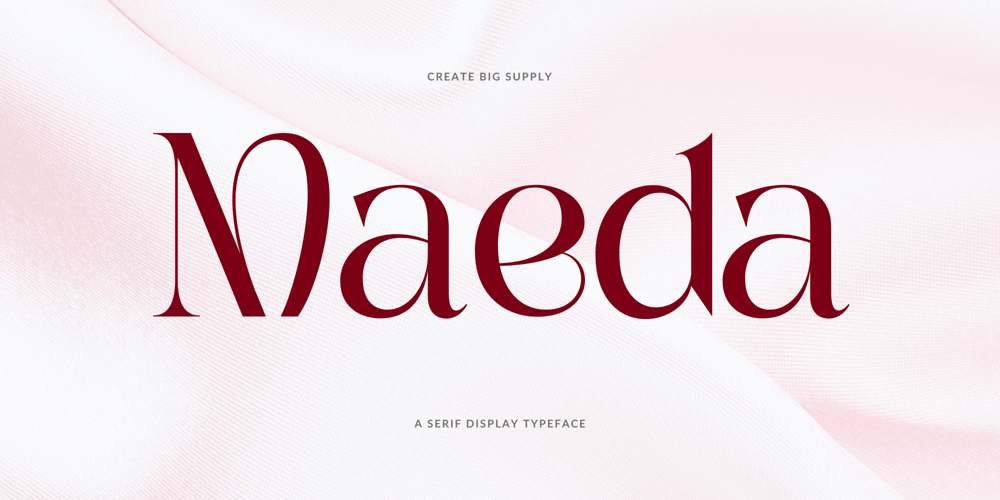
Maeda
Maeda font
Maeda Font Family was designed by Irpan Maulana and published by Create Big Supply. Maeda contains 1 styles and family package options. Maeda features both uppercase and lowercase characters, offering versatility for various design applications. Whether you’re designing elegant logos, sophisticated branding materials, or captivating editorial layouts, Maeda’s unique serif style adds a touch of individuality to your work.With a comprehensive set of numbers and punctuations, Maeda ensures clear and effective communication of your message across different platforms and mediums. Its multilingual support allows you to reach audiences worldwide effortlessly, making it perfect for global projects.Equipped with PUA Encoding, Maeda provides easy access to special characters, enhancing your design flexibility and creativity.Explore Your Font Haven today and discover the full potential of Maeda to elevate your designs and make them truly stand out.